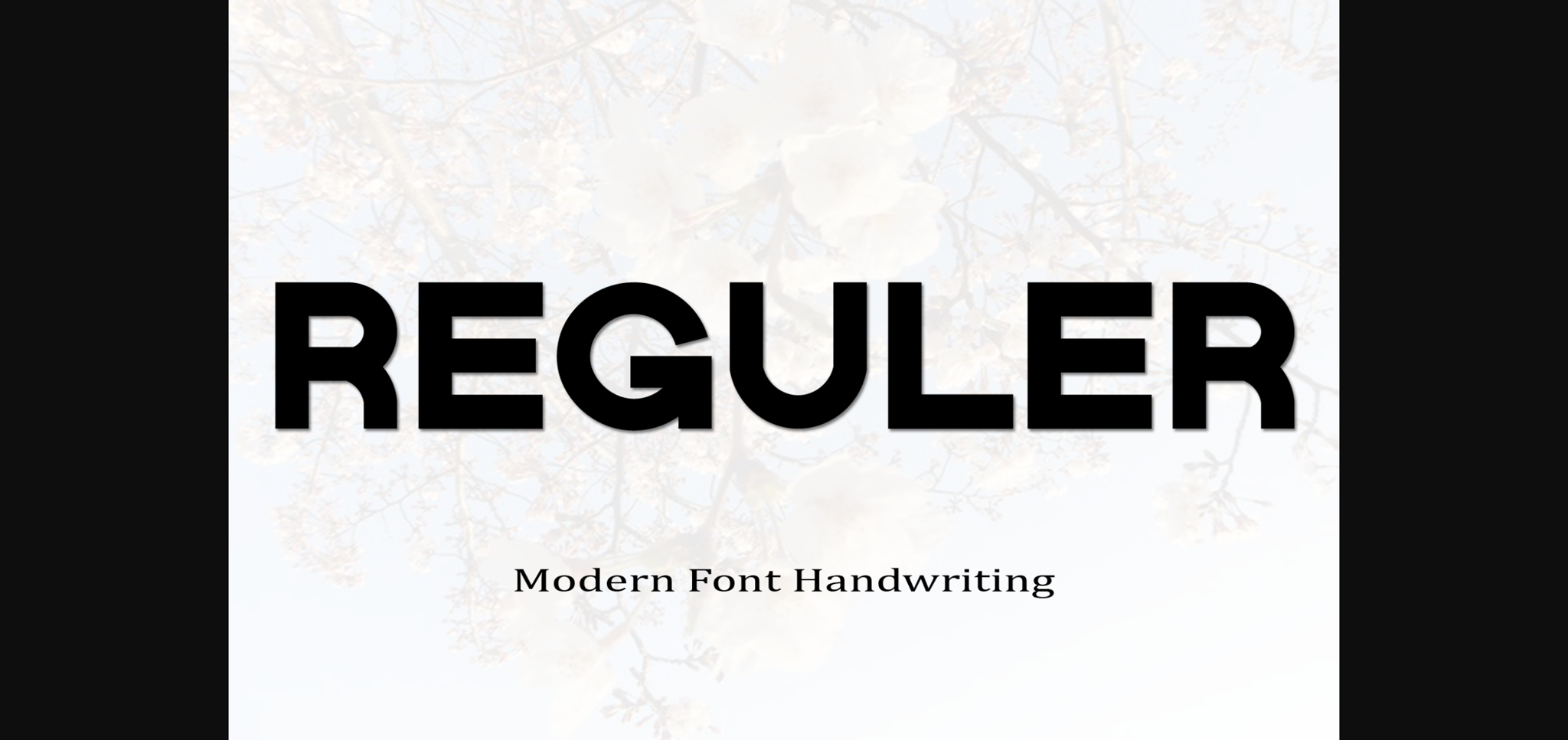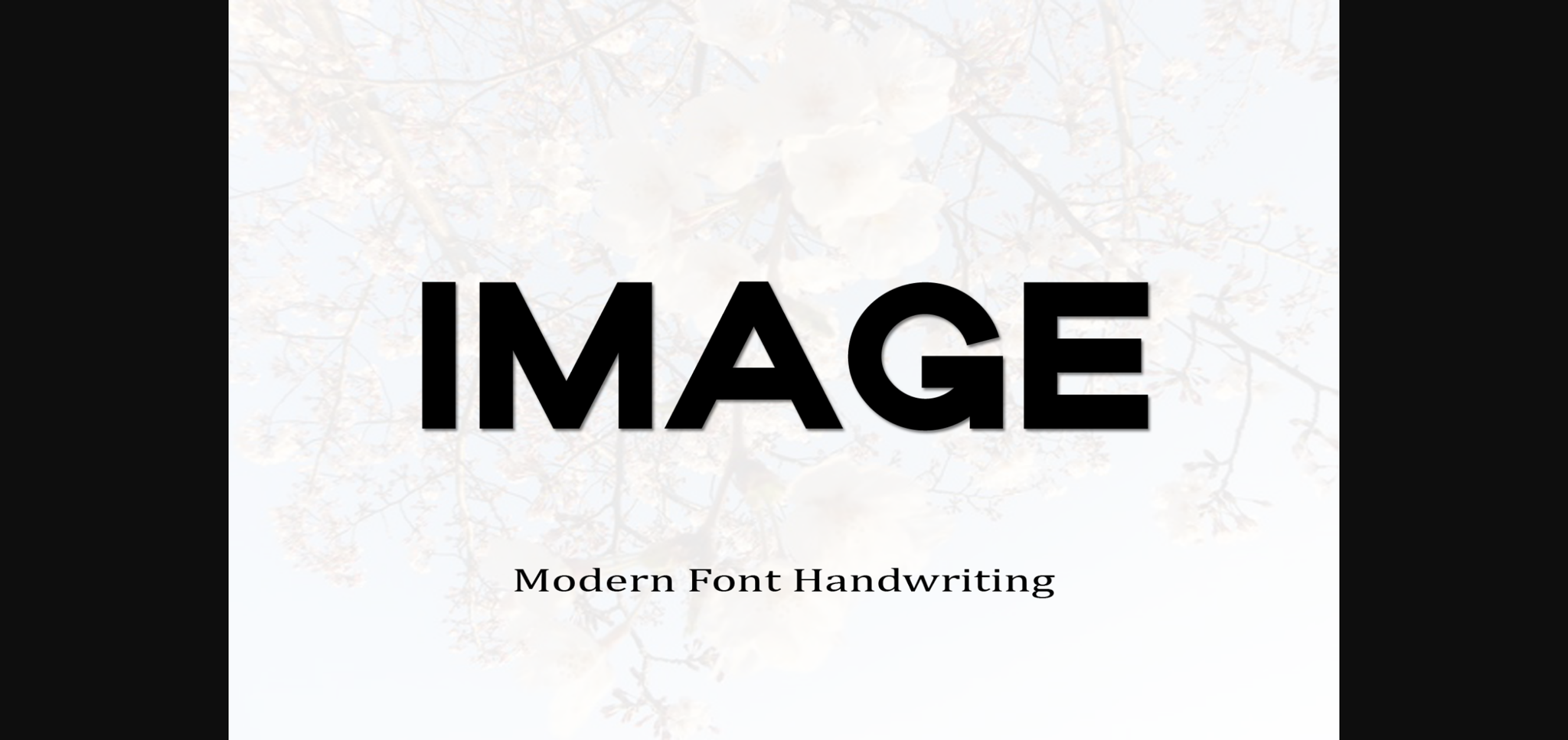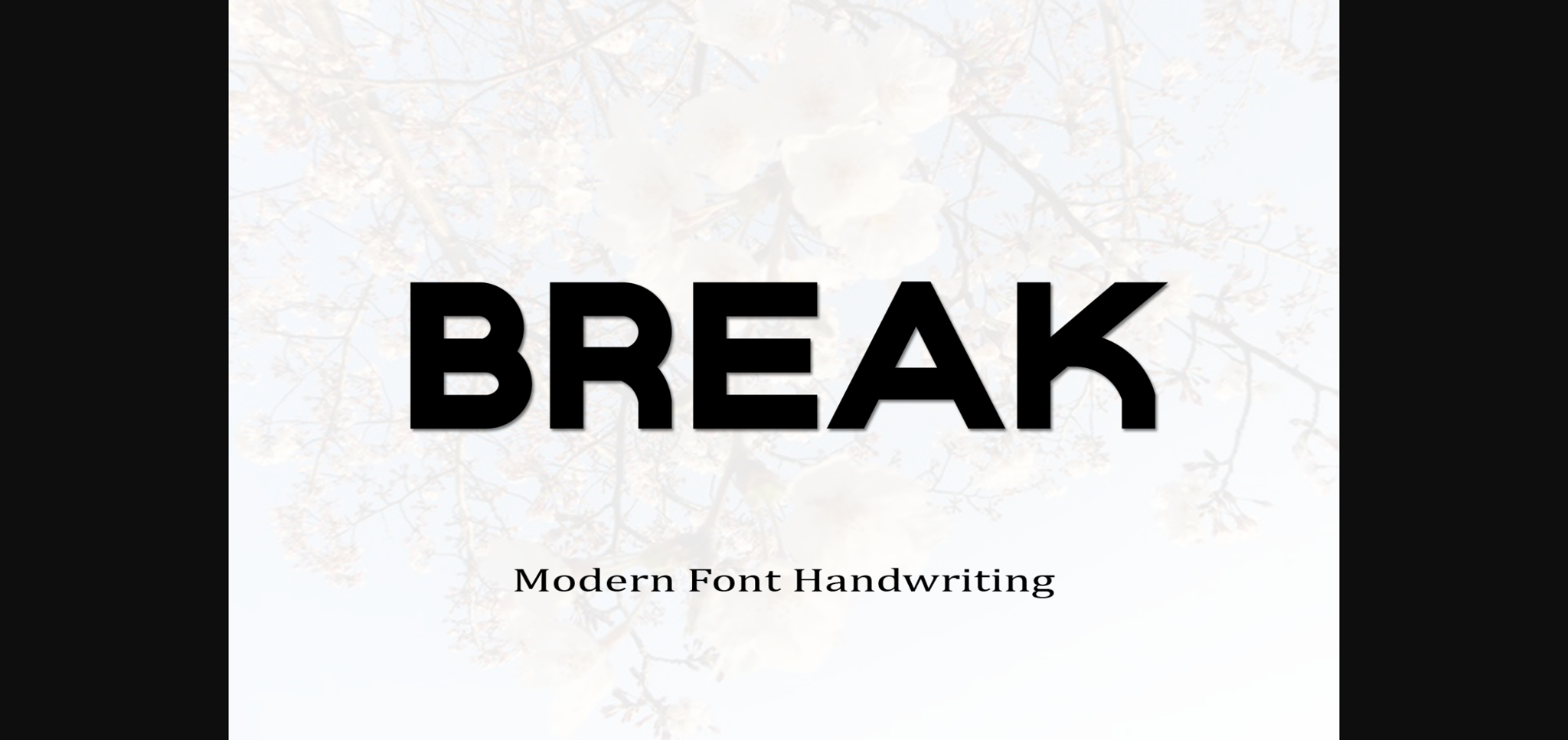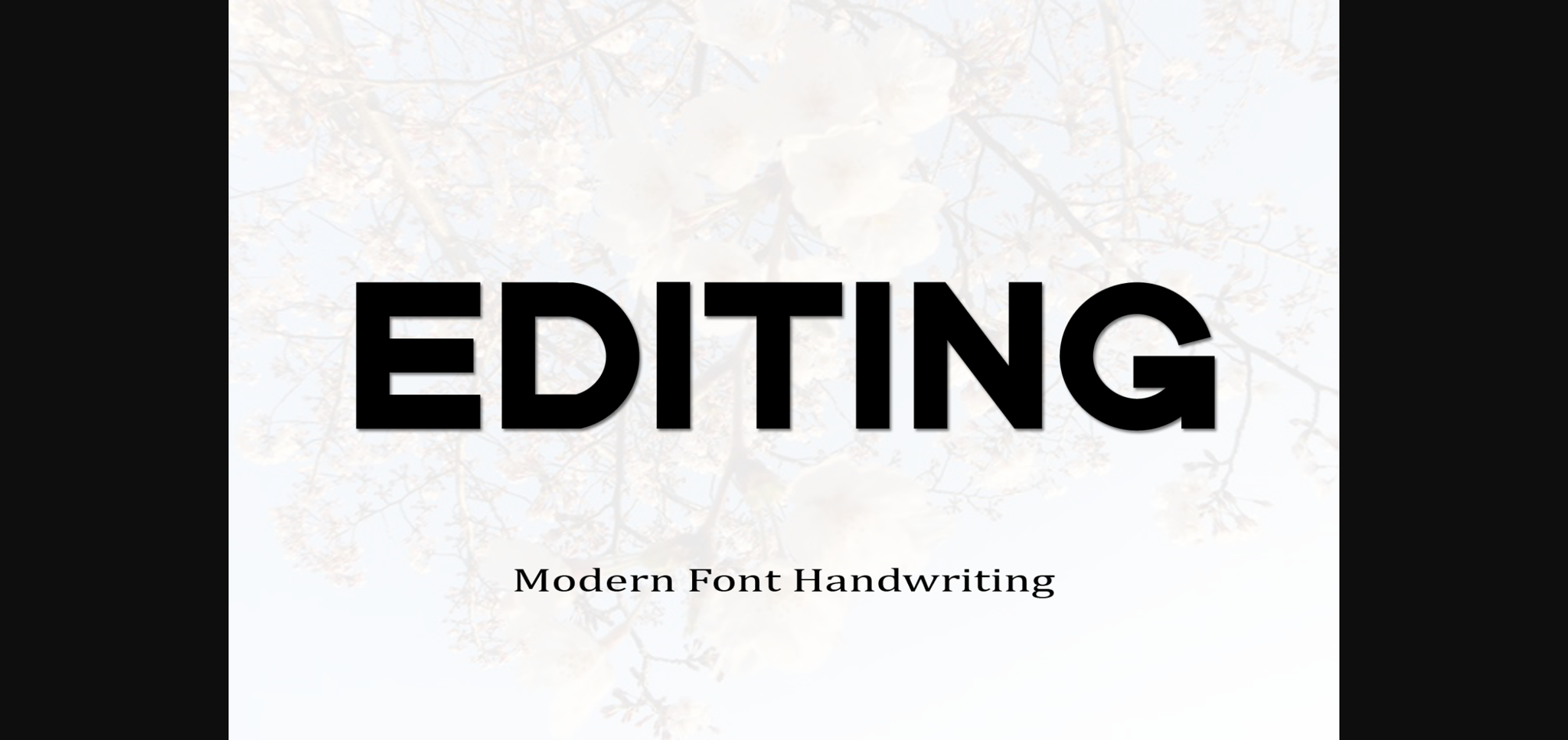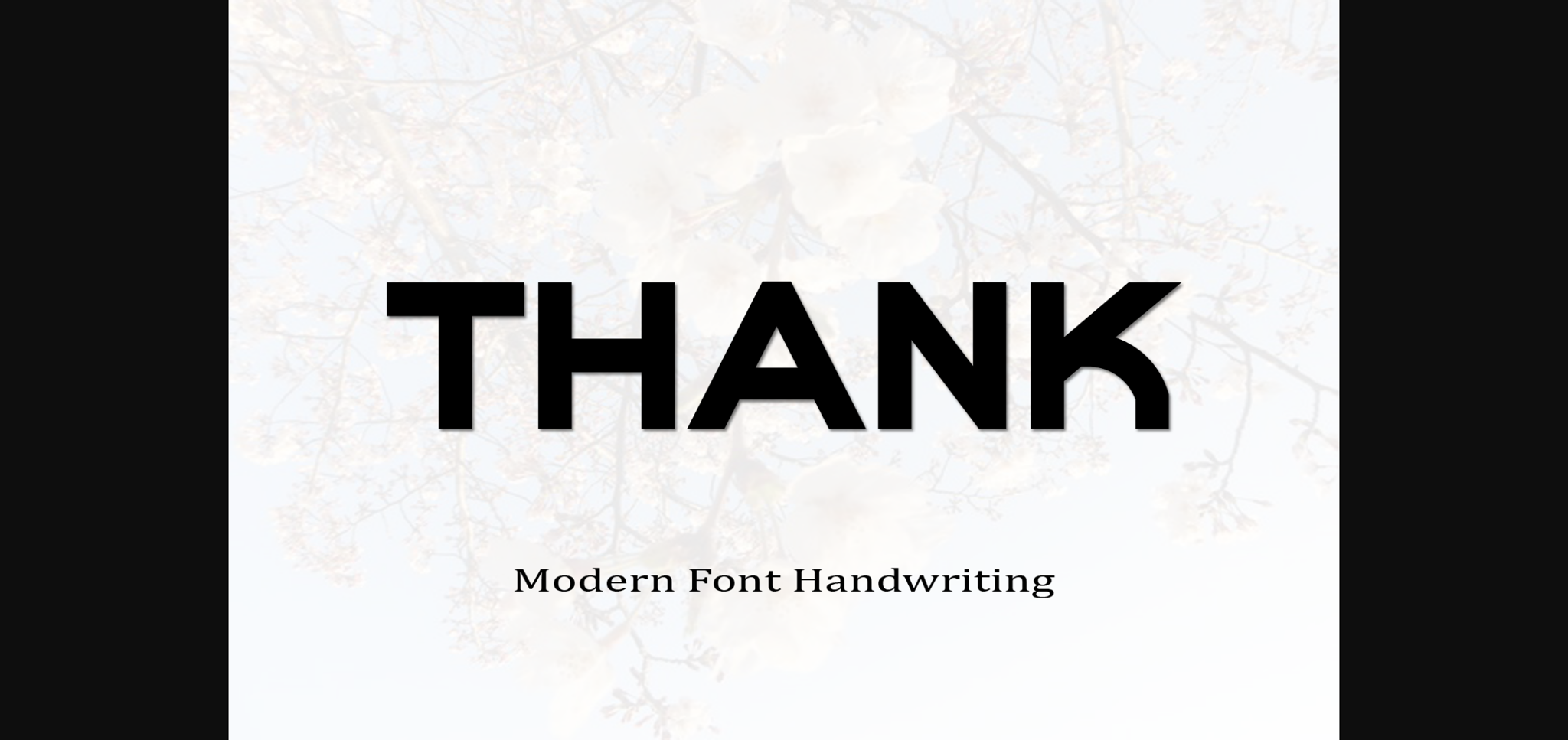
Reguler Font
Reguler s a classic and simple handwritten script, created in a random and free style.
It is suitable for logotype, headline font, in corporate identity, brand identity, apparel industry, poster, music, movie, game, magazine, book, comic, cartoon, YouTube, Instagram, website, or any of your creative design projects